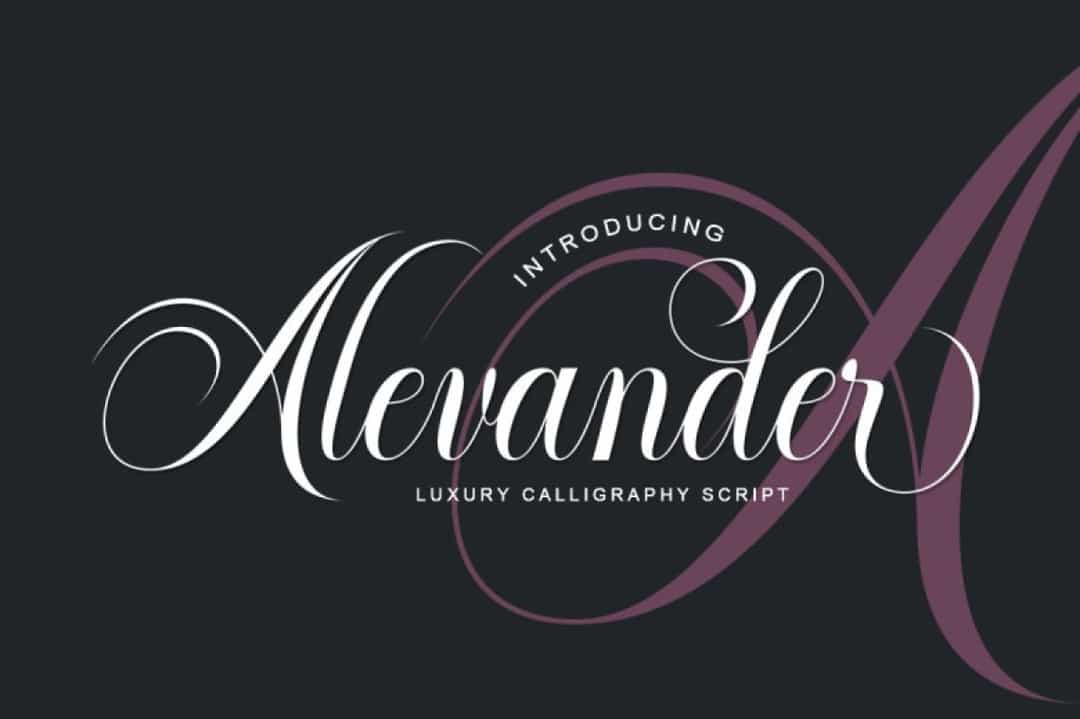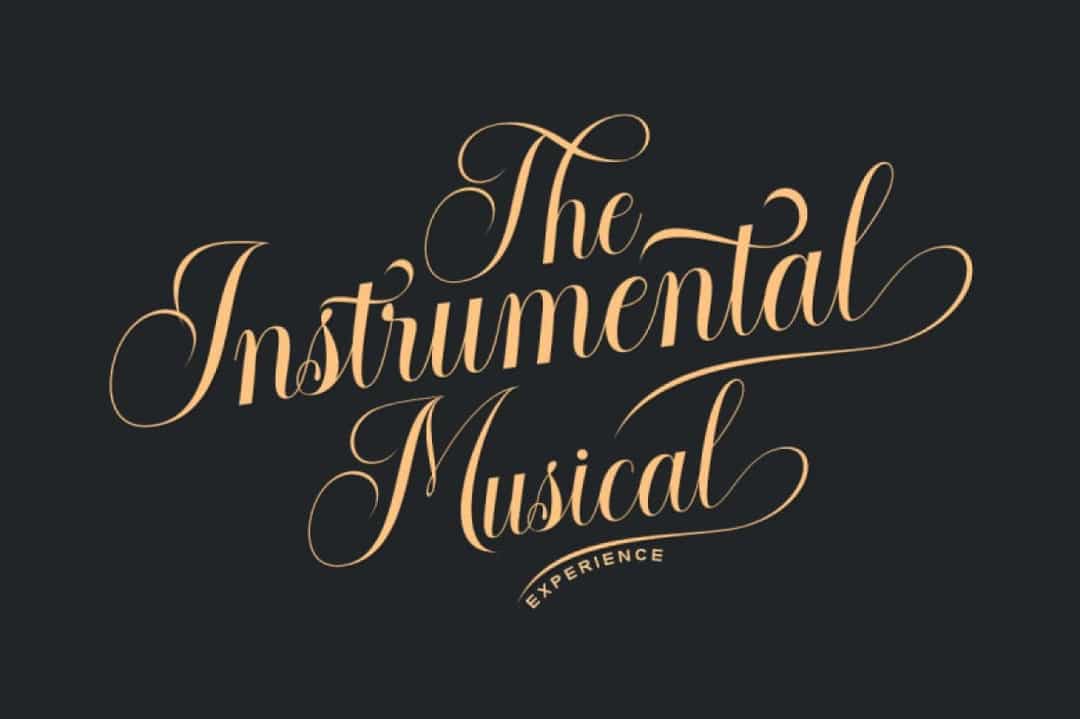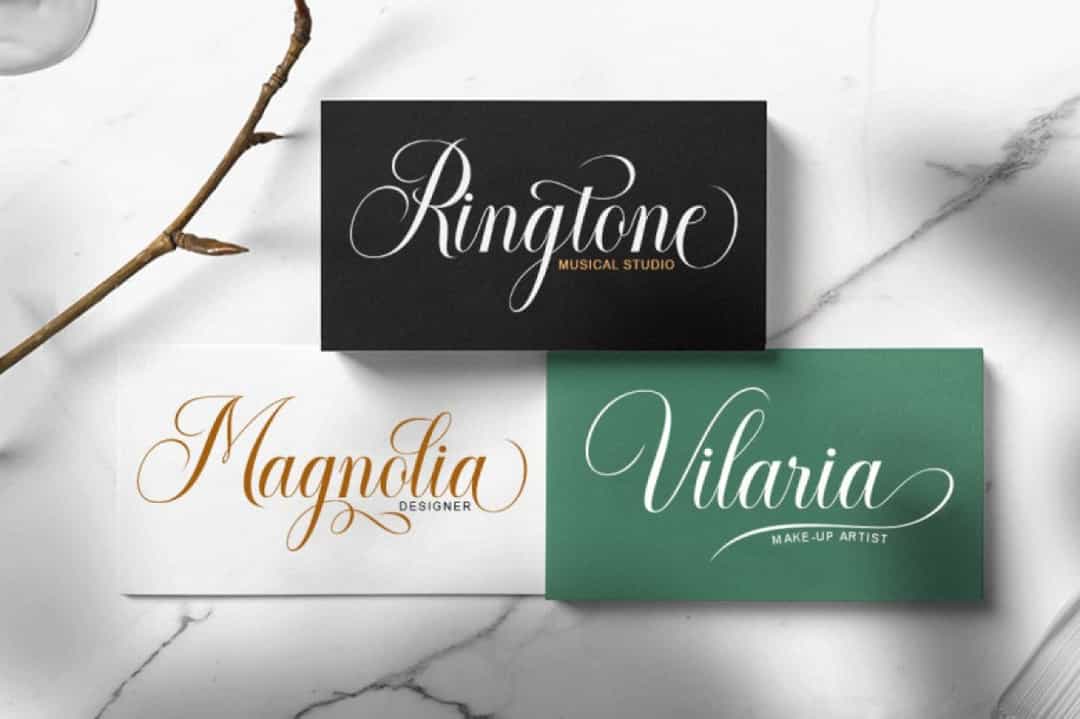
Alevander is an elegant calligraphic font. It features an italic design and comes with numerous modern swirls, creating elegant, beautiful swirls which make this font ideal for branding, logos and homeware designs as well as posters, mugs, bags for shopping logos, T-shirts book covers invitation cards business cards greeting cards projects as well as many others.